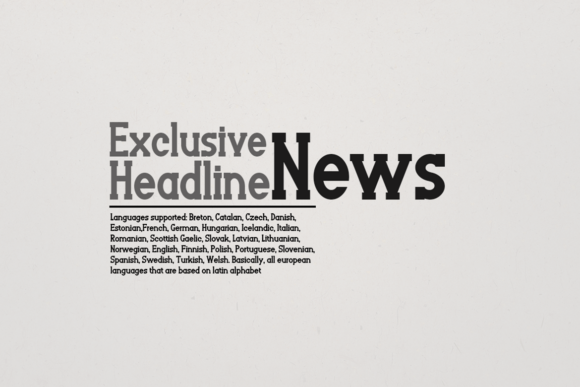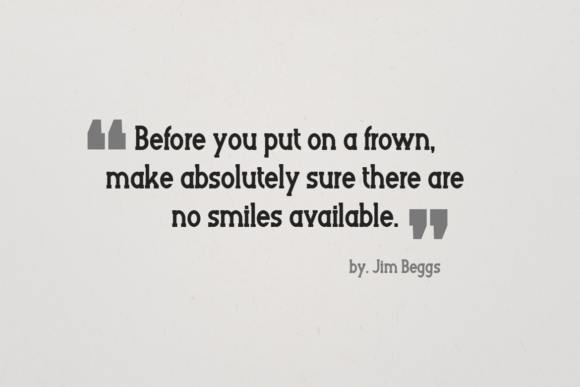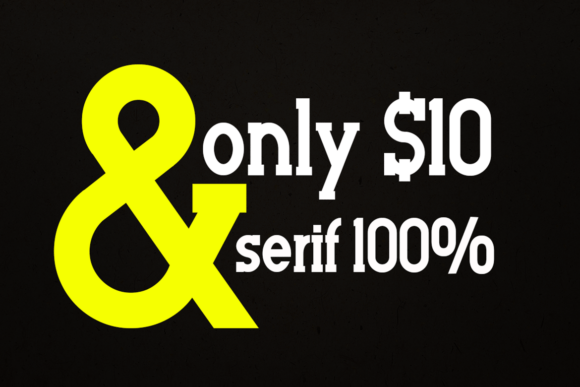
Introduction to Berlian Font
Berlian is typography with a firm structure.
It is very suitable for official media such as banners, magazines, newspapers, books, and others .
Why Choose Berlian Font?